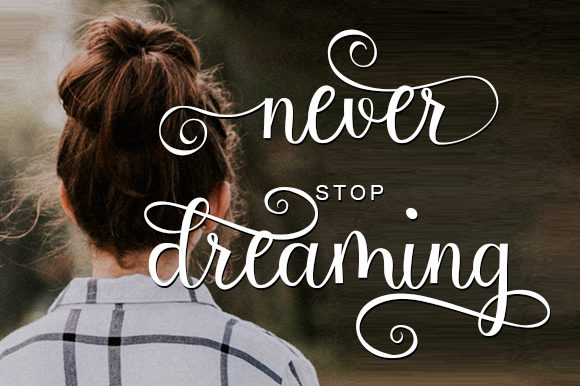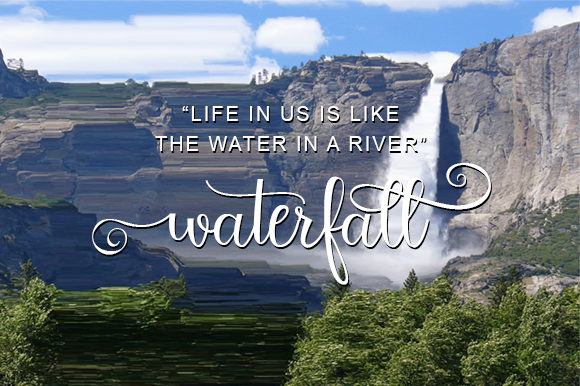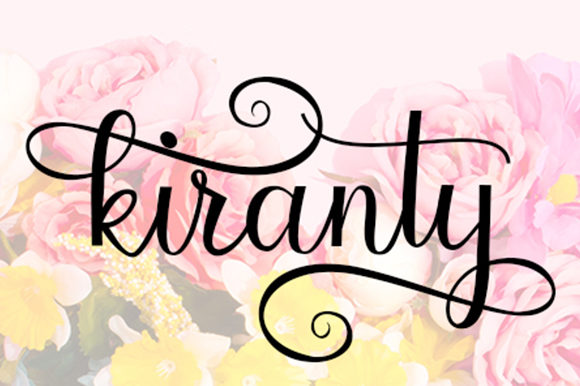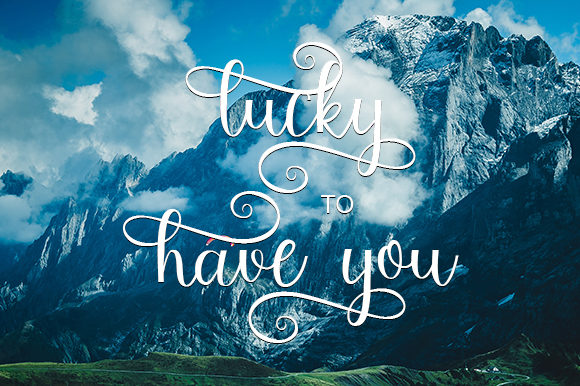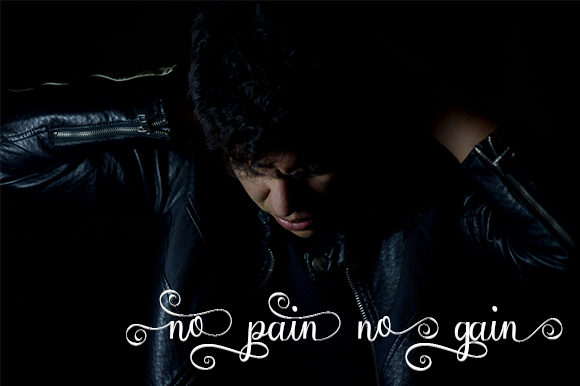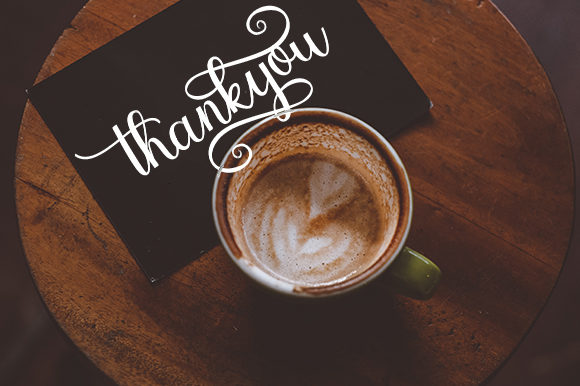
Kiranty Font
About Kiranty Font
Kiranty puts a contemporary twist on classic calligraphy. Get inspired by its light charm, and put an authentic twist on any design project iwth this handwritten font.